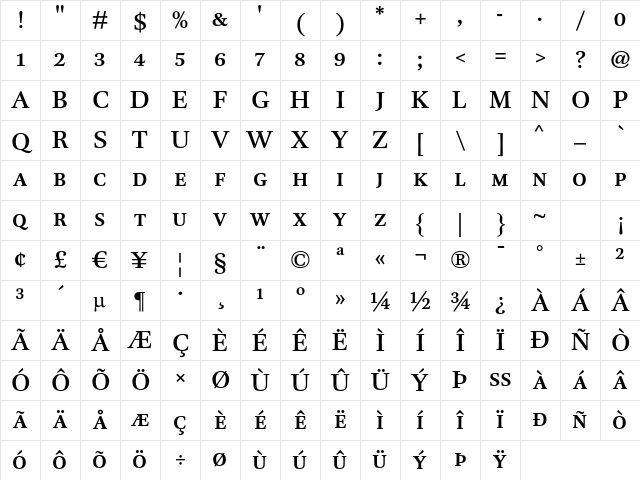
DTLUnicoT CapsMedium
Style: CapsMedium
Design Context for DTLUnicoT
DTLUnicoT is a composed and adaptable typeface that performs quietly and consistently across a wide range of design contexts.